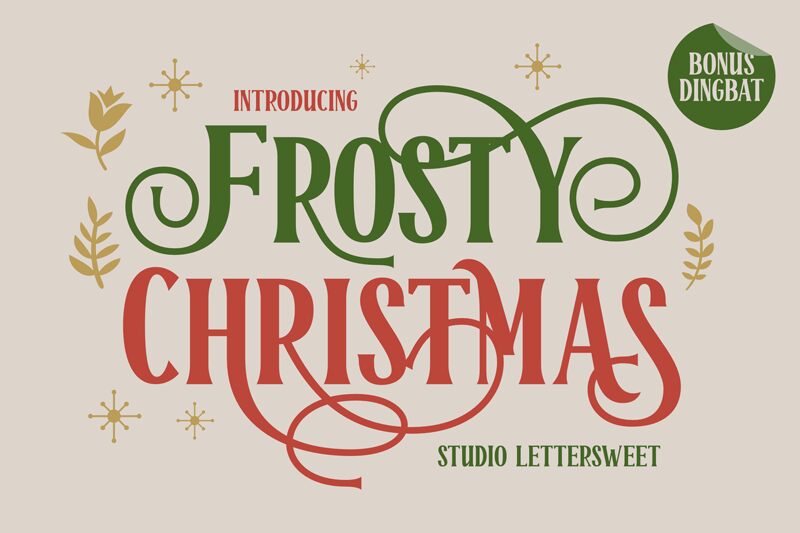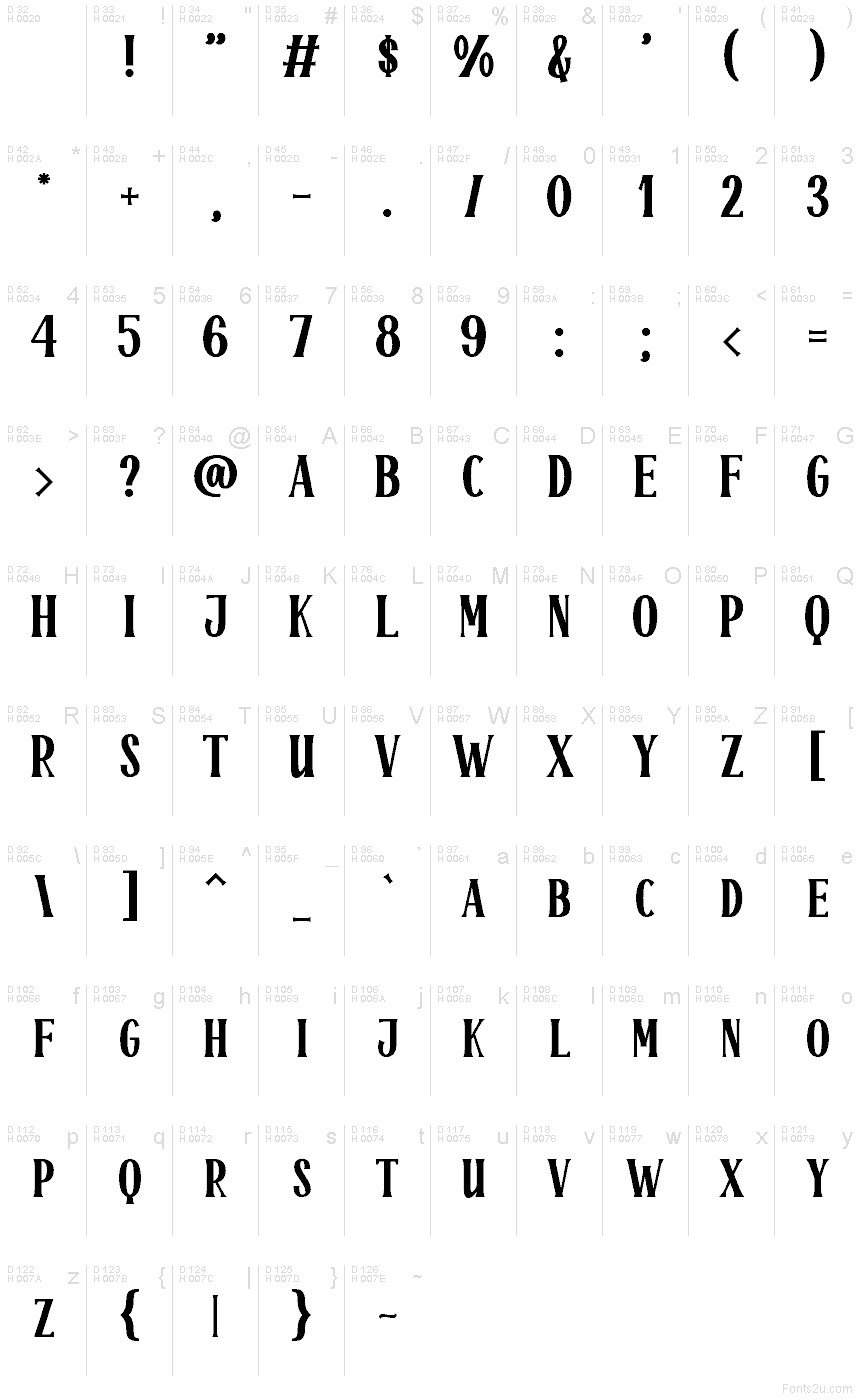
Frosty Christmas font by Lettersweet Studio is a free holiday Christmas typeface that bottles up that cozy, storybook December feeling. Tall, slightly wobbly letters with playful flared edges look like they’ve been hand-painted on a wooden sled or shop sign, giving every word a warm, homespun charm. The spacing is snug but readable, so headlines feel festive and full without turning into a chaotic tangle of shapes.
Using Frosty Christmas, your titles instantly feel like they belong on greeting cards, gift tags, party invitations, advent calendars, printable decor, and seasonal social media graphics. This free font shines when you set it large and let those narrow, quirky forms stack into bold, vertical headlines. Pair it with a clean sans serif for body copy to keep your layouts cheerful but not cluttered.